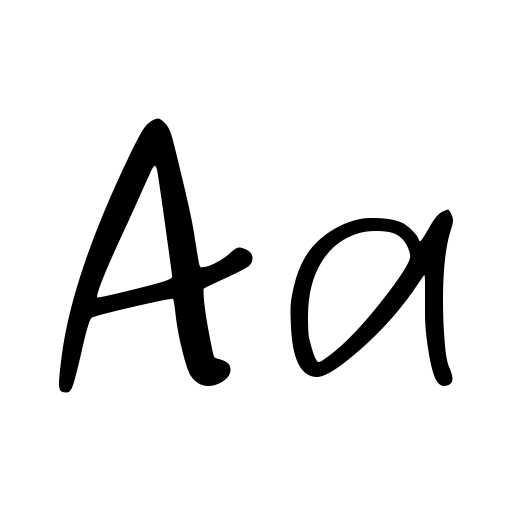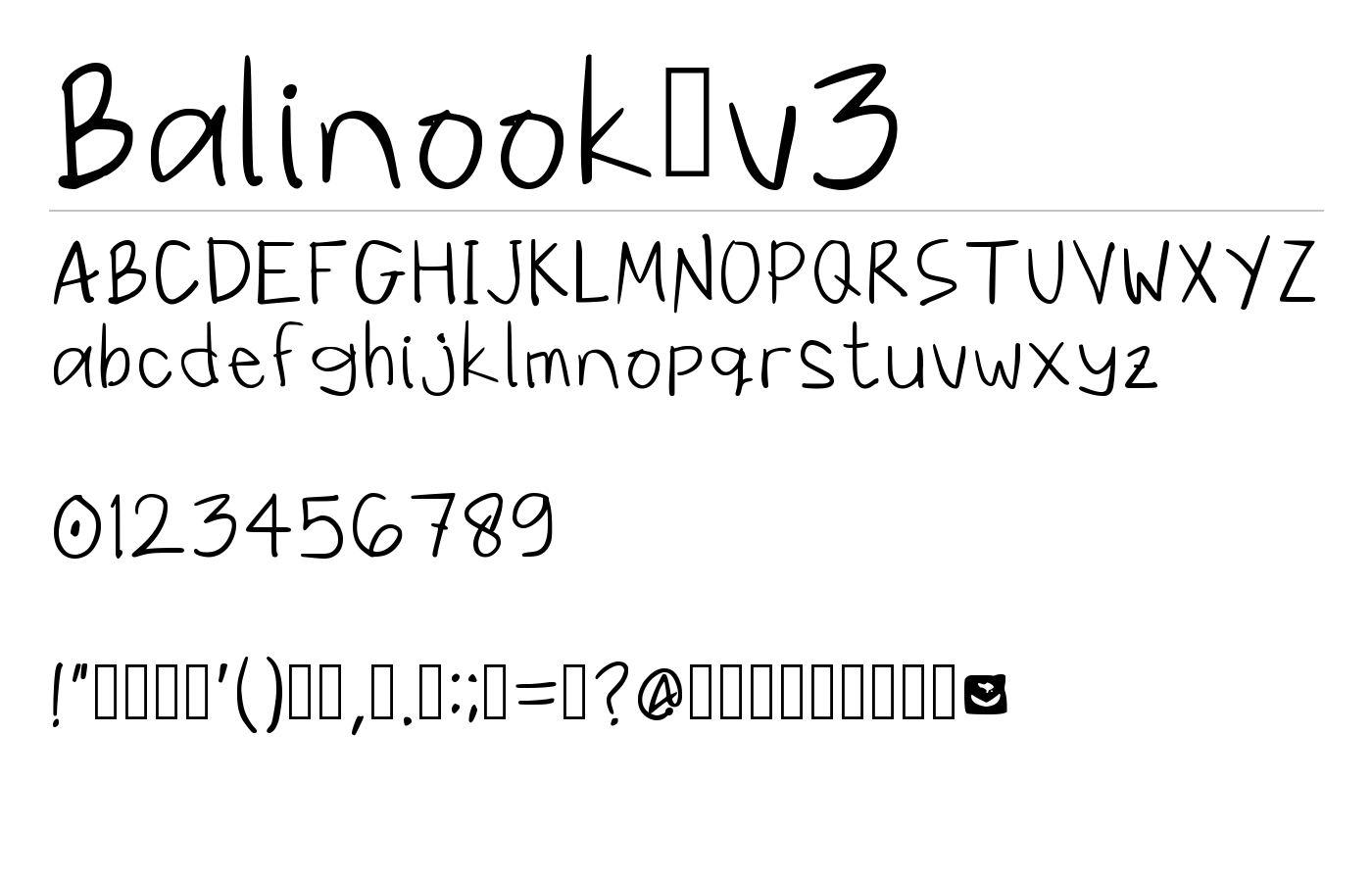
Balinook_v3 is a playful handwritten sans-serif font with a casual, friendly appearance. Its tall, slightly irregular letterforms and moderate spacing give it an approachable and informal feel, making it great for creative projects, children’s materials, or personal branding where a warm, human touch is desired. This font works well in headlines, invitations, and casual digital content where personality and readability are equally important.
Balinook_v3 Font